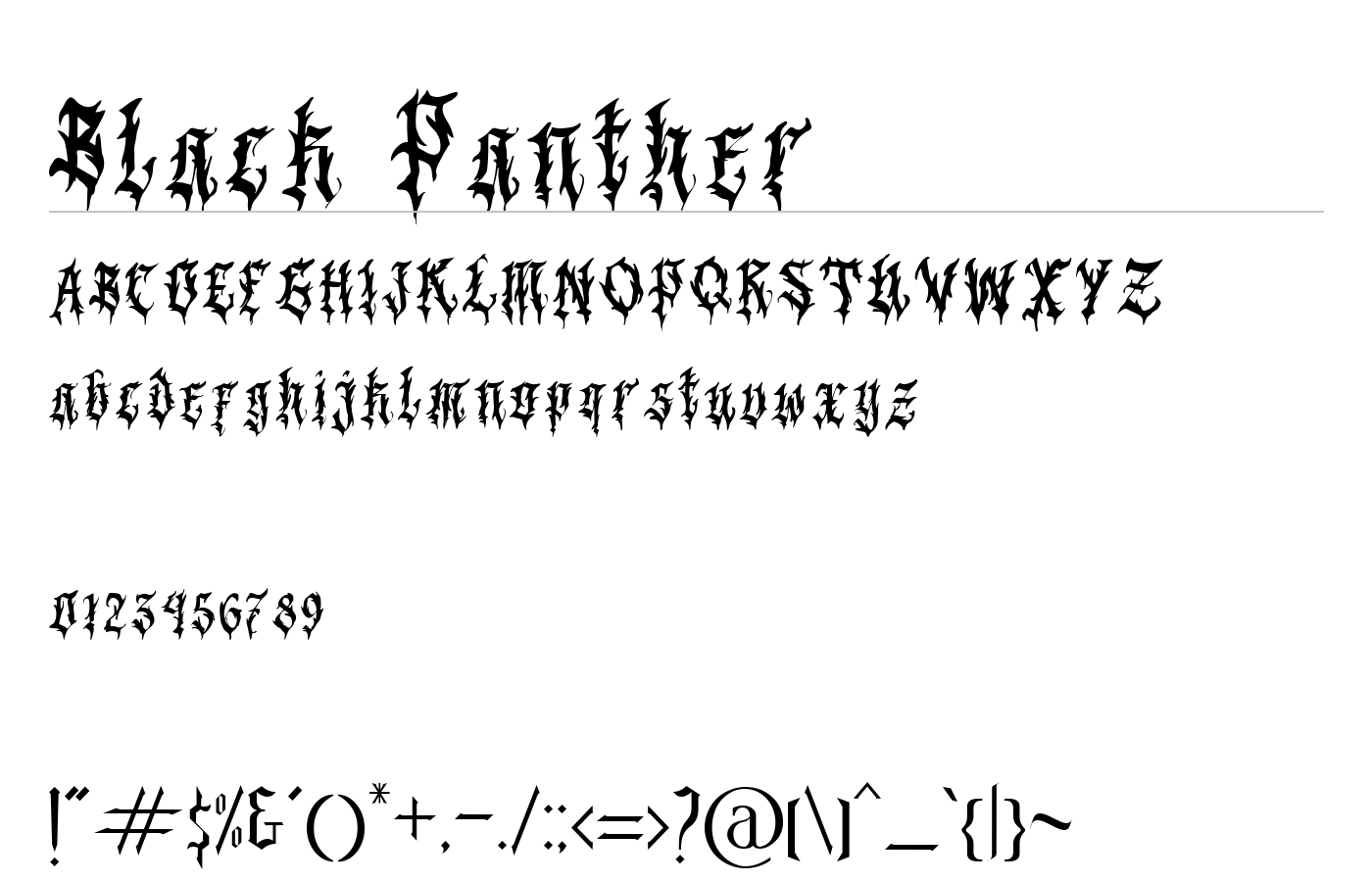
Black Panther Font is a bold gothic-style typeface with sharp, intricate letterforms that evoke a dark, edgy vibe. Its high contrast strokes and pointed serifs create a dramatic, vintage feel, making it ideal for themes related to fantasy, horror, or heavy metal branding. This font works best in headlines, logos, and posters where a strong, attention-grabbing appearance is needed.
Black Panther Font
About Black Panther Font